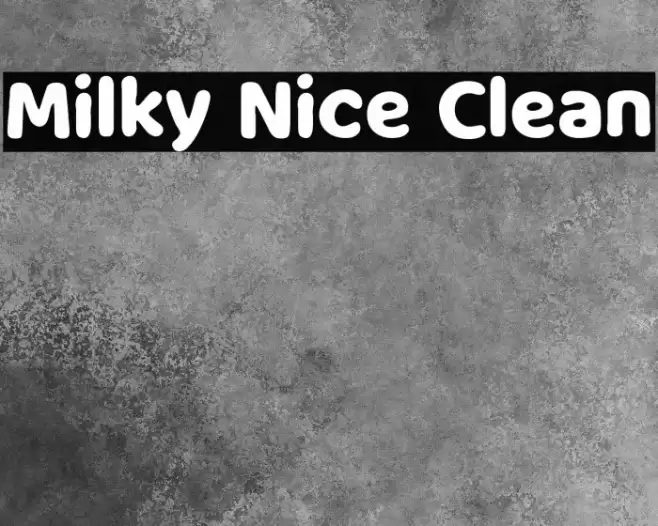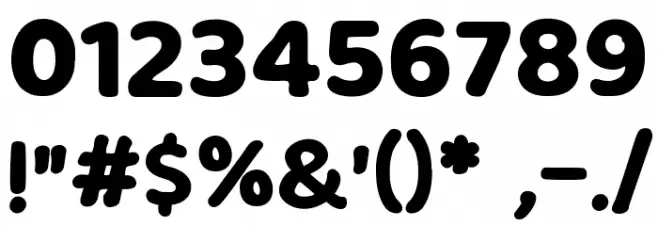
Milky Nice Clean Font
Milky Nice Clean Description
This font features a playful and rounded design, characterized by its smooth, bold strokes and friendly appearance. Each letter is crafted with a uniform thickness, creating a cohesive and approachable look. The rounded edges and lack of sharp angles contribute to its soft and inviting feel. This style is particularly effective in conveying a sense of warmth and accessibility, making it ideal for projects aimed at a younger audience or those seeking a casual and informal tone. The font maintains a consistent weight throughout, ensuring readability while adding a touch of whimsy.
A playful, rounded font with smooth, bold strokes and a friendly appearance from Cartoon fonts.
- Proposed Projects: Ideal for children's books, playful branding, casual invitations, and social media graphics.
- Overall Style: Playful